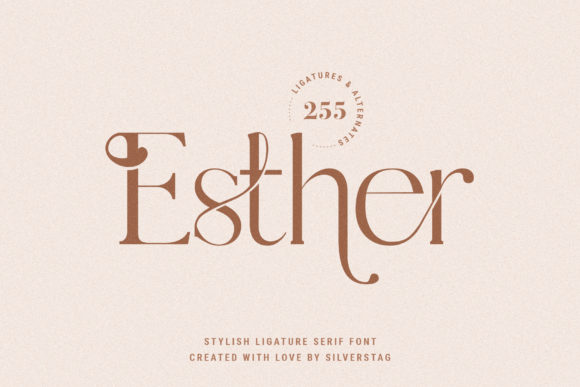
Looking for a font that can add a touch of elegance to your project while still feeling fresh and modern? Look no further than Esther Font, a stunning serif font created by SilverStag.
Esther Font is the perfect blend of classic calligraphy and contemporary design. Its smooth, flowing lines give it a timeless quality that will never go out of style. At the same time, its modern touches make it versatile enough to work with a wide range of projects.
Whether you're looking to create beautiful letterheads, eye-catching titles, or stunning stationery, Esther Font has got you covered. Its elegant curves and clean lines are sure to make any project stand out from the crowd.
But Esther Font is more than just a pretty face. It's also a font that's designed to be easy to read, even at small sizes. This makes it perfect for use in a wide range of applications, from websites to print materials.
So why choose Esther Font? Because it's a font that truly simplifies elegance. Its timeless design and modern flair make it the perfect choice for anyone looking to elevate their next project. And with its versatility and ease of use, it's a font that's sure to become a staple in your design toolkit.
Don't settle for a boring, run-of-the-mill font. Choose Esther Font and take your designs to the next level.